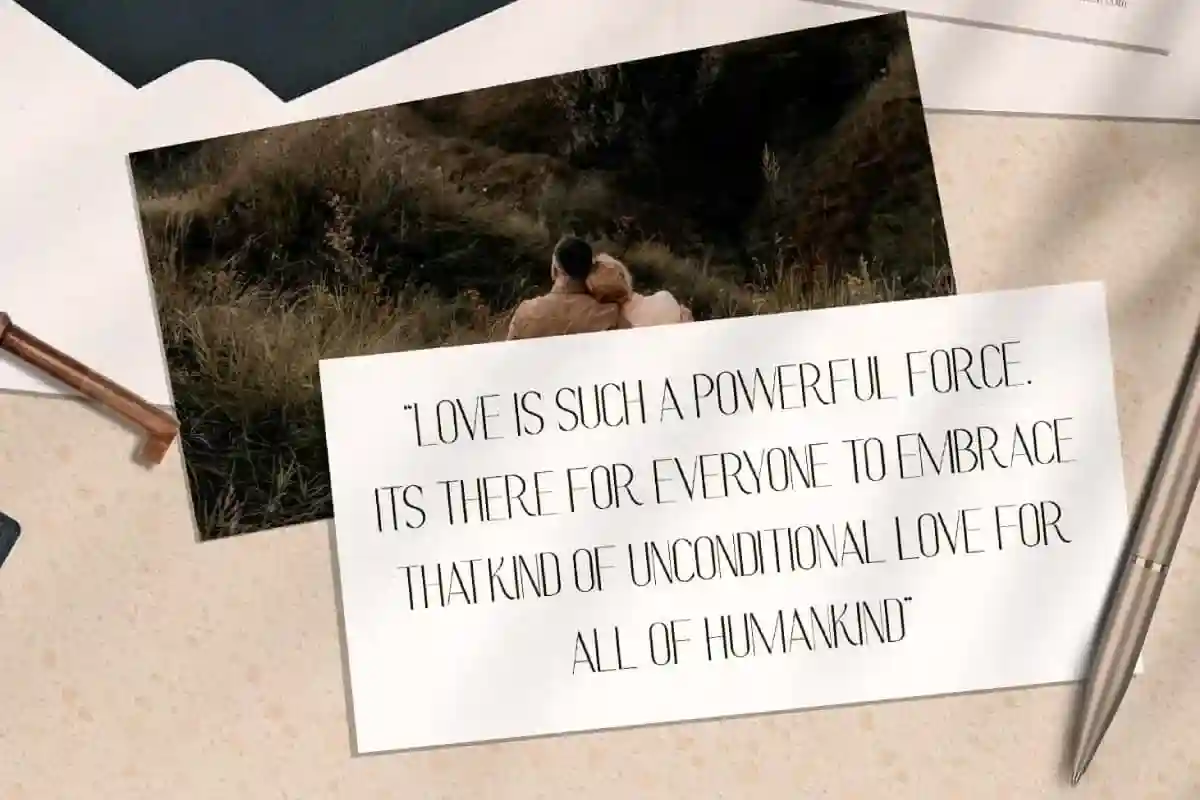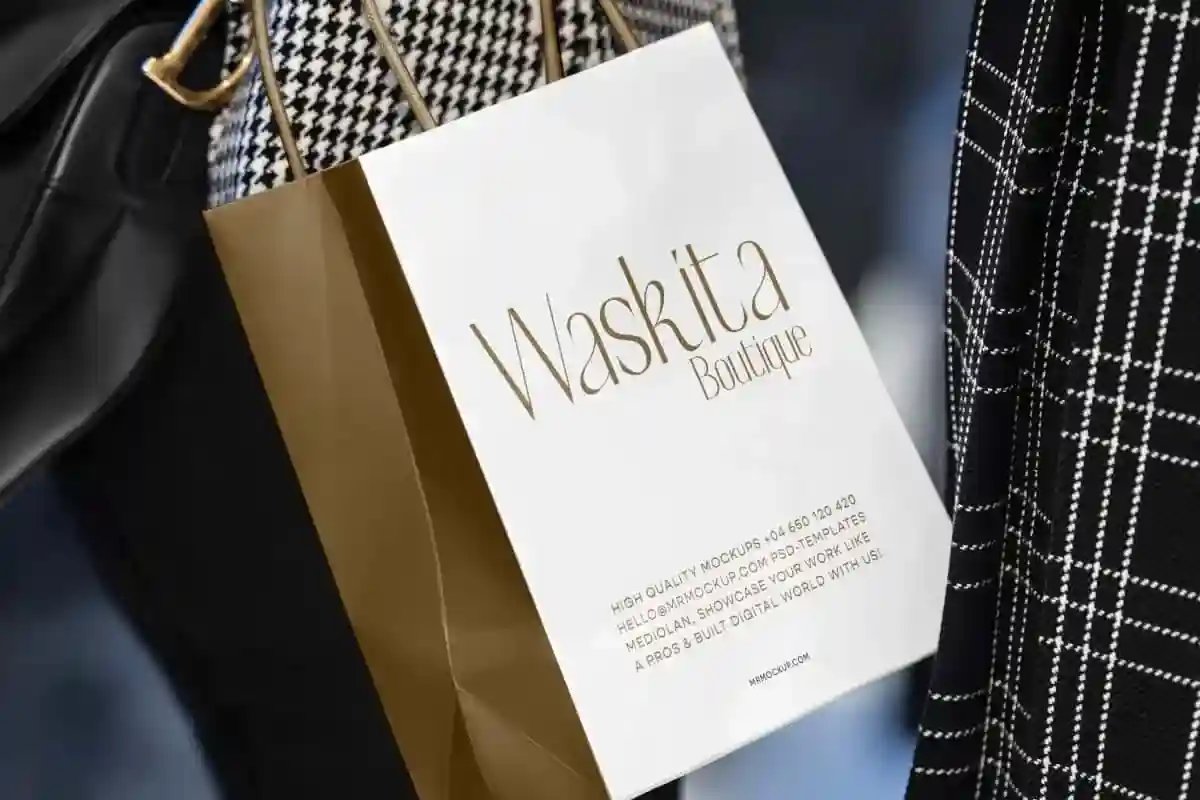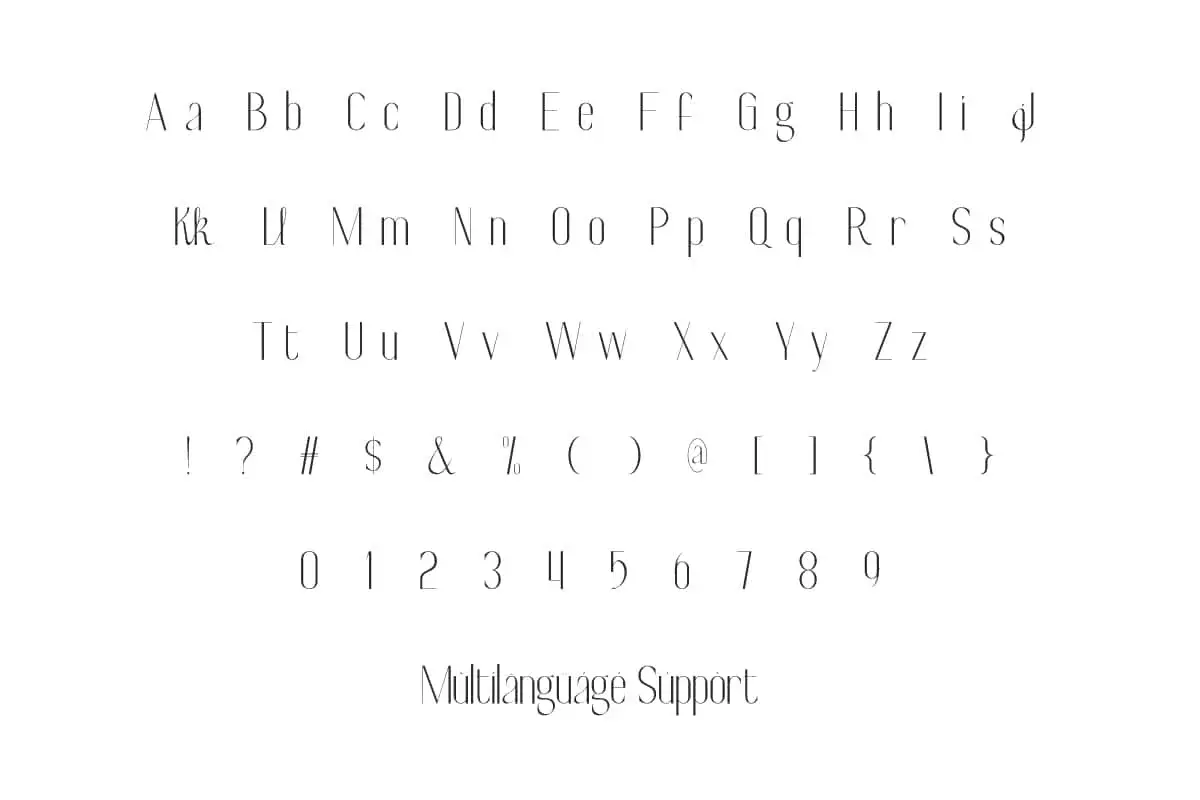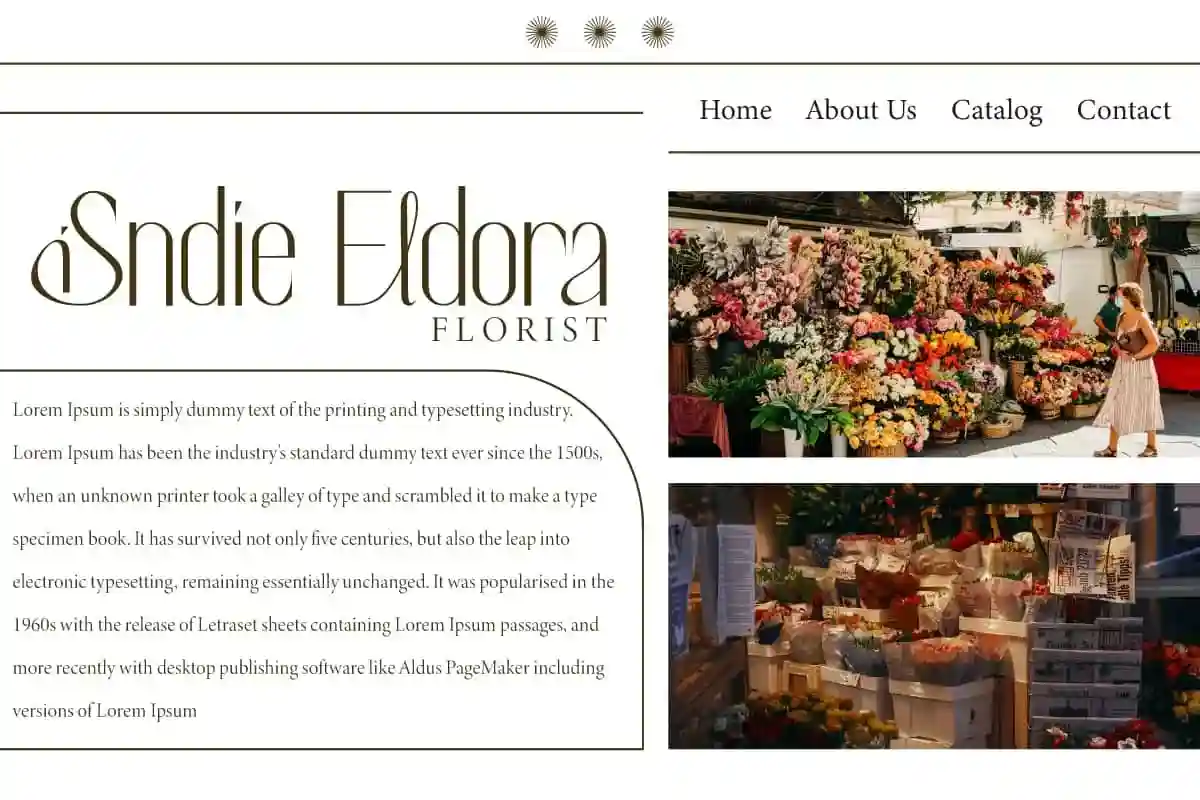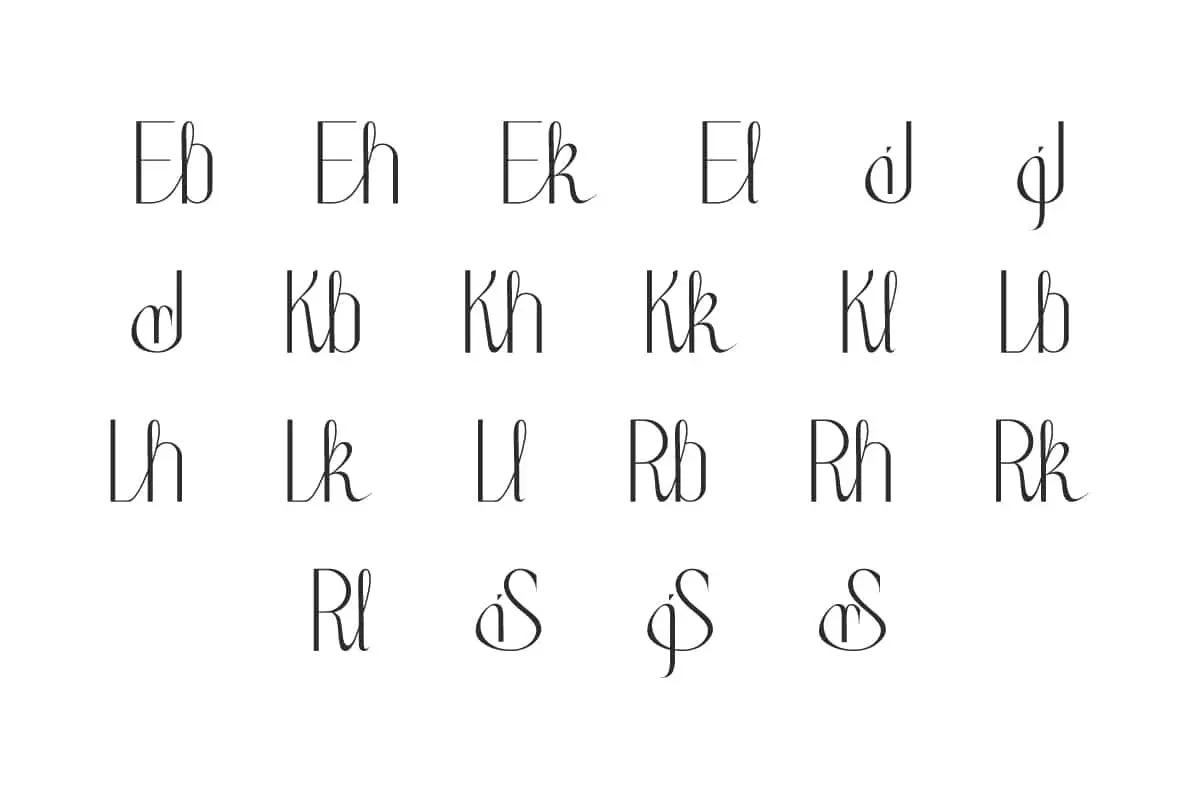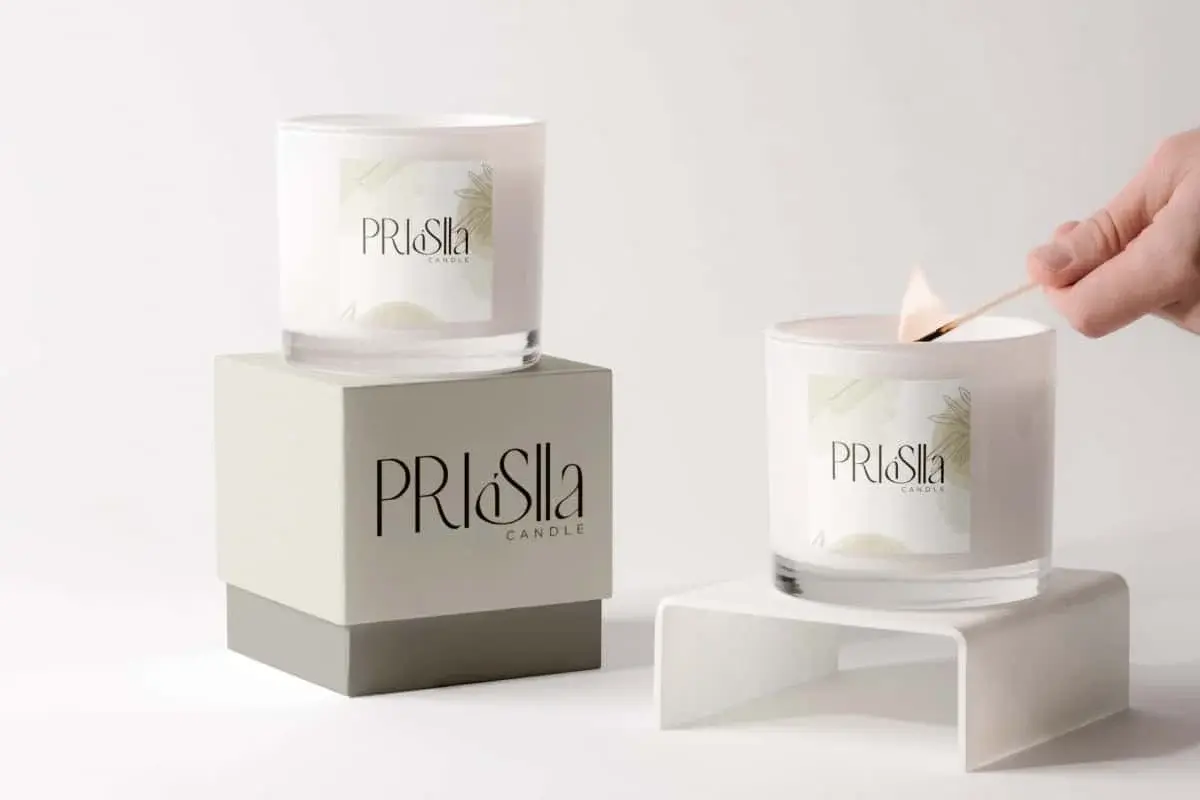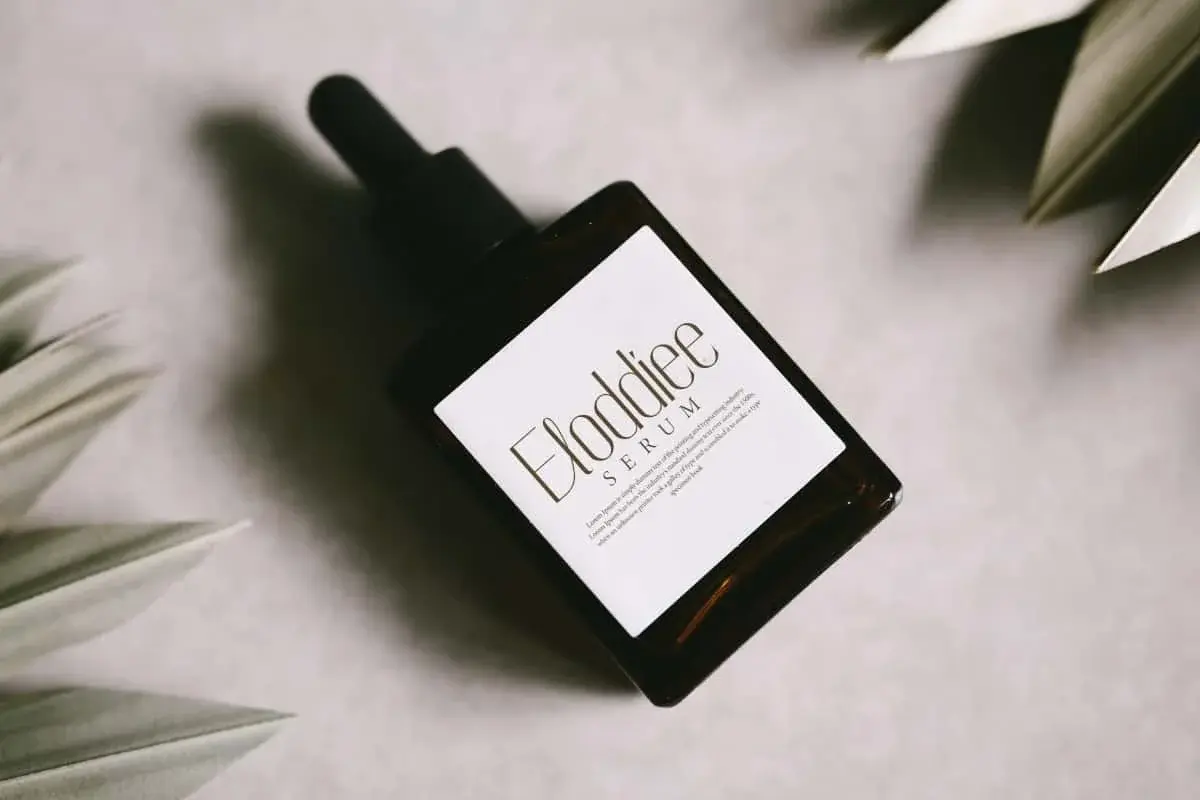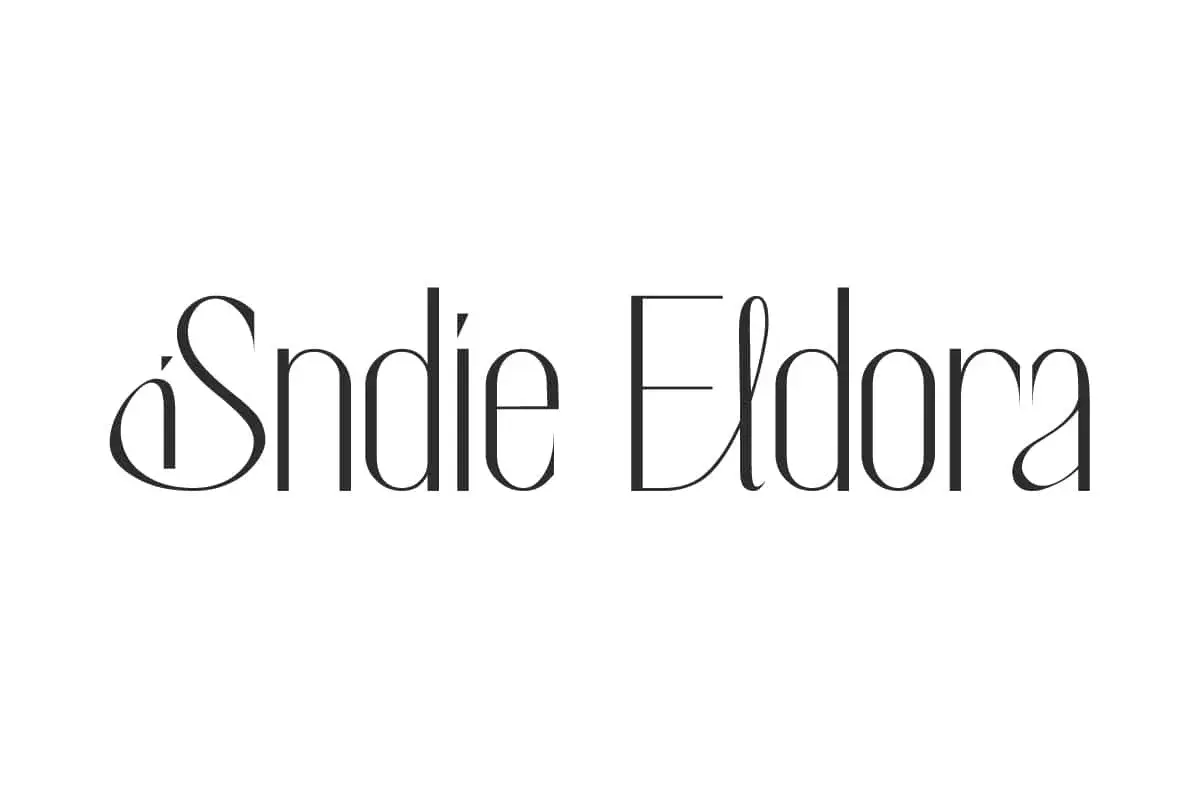
Sindie Eldora Font is a modern, sophisticated and elegant display font, ita beauty of captivating typography with chic awesome beautiful appearances.
Sindie Eldora Font is a modern, sophisticated and elegant display font, perfectly crafted in an artistic touch. It brings a unique visual voice as well as easy readability to use in any case, suitable for greeting cards, invitation, label, logos, mockup, packaging, paper bag, screen printing, stationery, template, website, and so much more!
Sindie Eldora Font includes full set of Uppercase and Lowercase Basic Characters, Numbers, Punctuation, Symbols and Ligature. With its understated beauty creating a visually appealing harmony, utilize this exclusive font for both personal and corporate purposes. Ideal for advertising, boutique, cosmetology, florist, photography, skincare, spa salon, and so much more!